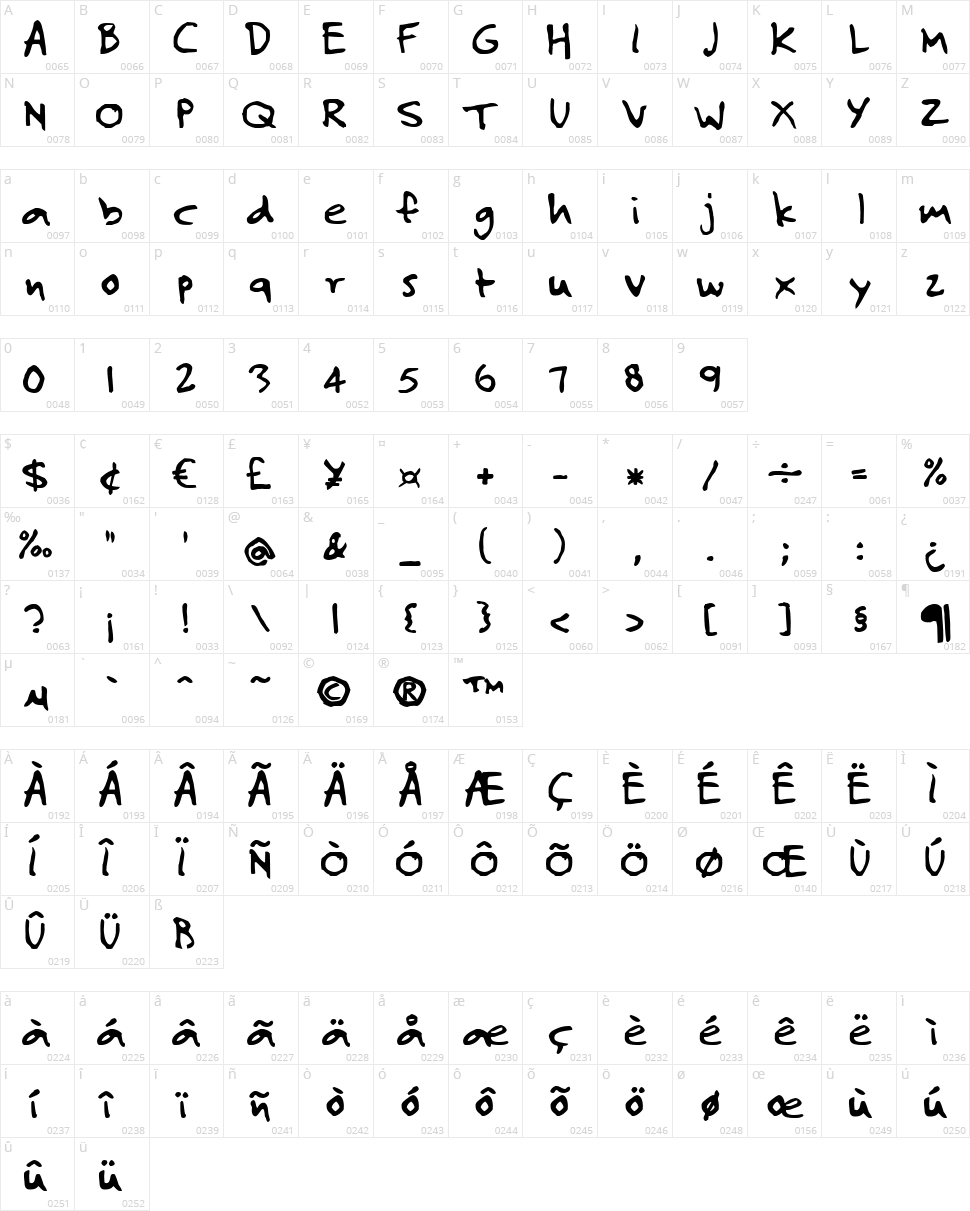
Josef Xuereb's Two and a Half Men
:: Author: Josef Xuereb ::
I felt the need to create this font because I never really found a
"Two and a Half Men" font which is true to the one used in the TV show.
Well, this one is!